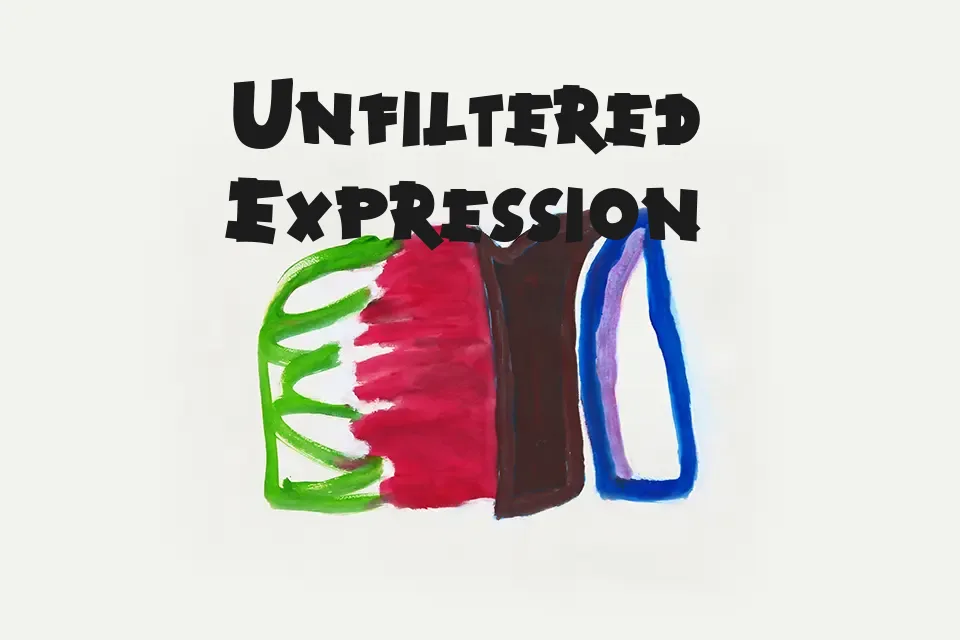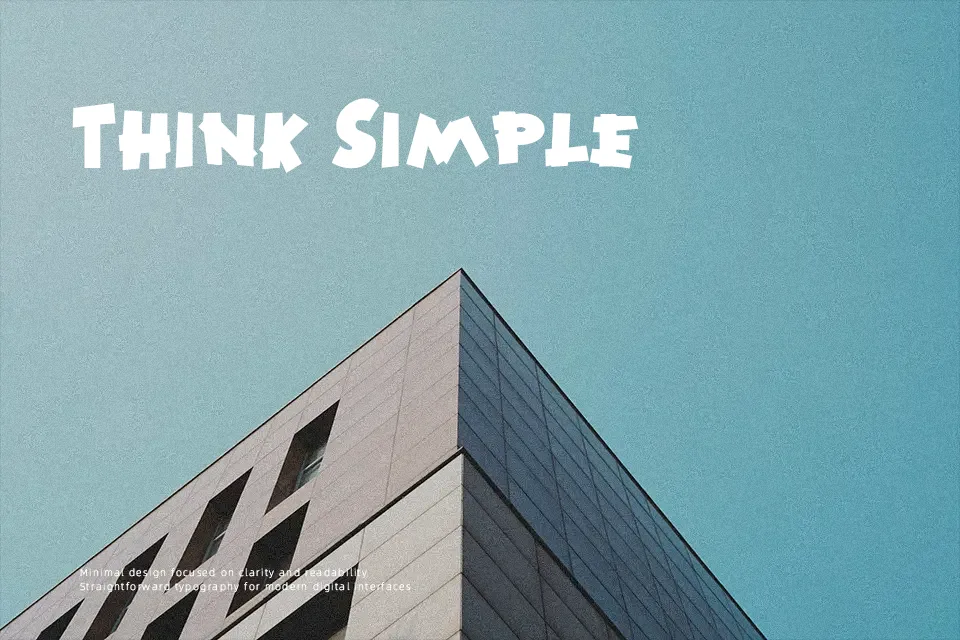
Burnstown Dam Font
Designed by Typodermic Fonts
Burnstown Dam is a small caps display face with chunky, uneven strokes, loose spacing, and slightly crooked contours that mimic hand-painted wood boards. The overall look is casual, rustic, and a bit gritty, closer to nailed-together barn lettering than polished branding. It shines in layouts where you want to lean into “out in the sticks” storytelling: moonshine labels, corn roast flyers, campground signage, or parody western graphics. I would keep it to short headlines and logotypes; long paragraphs quickly feel noisy and tiring. If you need clean legibility for UI or editorial work, this one is more character piece than workhorse text font.
moonshine or craft liquor labels
rustic event posters and flyers
cowboy or country-themed branding
campground or outdoor festival signage
body text or long reading passages
professional corporate documents
minimalist or luxury branding
small-size UI or app interfaces
Perfect for advertising, branding, and headline, with a bold and decorative style.